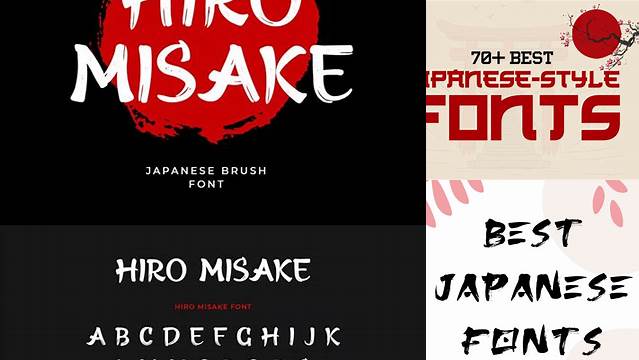
Free Japanese Font Styles Download: Best Picks!
Hey guys! Looking to add a touch of Japanese flair to your projects? You're in the right place! In this article, we're diving deep into the world of free Japanese font styles. We'll explore everything from elegant calligraphy fonts to cool, modern designs, and show you where to download them. So, let's get started and make your text look amazing!
1. Understanding Japanese Font Styles
Before we jump into downloading, let's talk about what makes Japanese fonts unique. Unlike Latin alphabets, Japanese writing uses a combination of three scripts: Hiragana, Katakana, and Kanji. Each script has its own distinct style and purpose, which influences the overall look of the font. When you're looking for a free download Japanese font style, it’s crucial to understand these differences to choose the right font for your project.
Japanese font styles can range from traditional calligraphy-inspired fonts, which are elegant and flowing, to more modern and geometric designs. Think about the message you want to convey. A traditional font might be perfect for a historical or cultural project, while a modern font could be better suited for a tech or gaming theme. Understanding the nuances of each style will help you make the best choice and ensure your design truly captures the essence of Japanese aesthetics.
Also, consider the legibility of the font. Some elaborate calligraphy fonts might look stunning, but they can be difficult to read if used for body text. Save those for headlines or decorative elements where readability isn't as crucial. For longer texts, opt for simpler, cleaner Japanese fonts that are easy on the eyes. This balance between style and readability is key to effective design.
3.1 Google Fonts
Google Fonts is a powerhouse for free fonts, and their Japanese selection is no exception. The fonts here are designed for web use, meaning they load quickly and look great online. Google Fonts offers a variety of Japanese font styles, including both traditional and modern designs. The best part? All fonts are open-source, so you can use them for personal and commercial projects without worry. Google Fonts makes it easy to preview fonts, download them, and even embed them directly into your website with just a few lines of code. This is a huge advantage if you're working on a web project and need fonts that are optimized for online display. The interface is clean and straightforward, making it easy to find the perfect font for your needs.
3.2 DaFont
DaFont is a treasure trove of fonts, with a massive collection submitted by designers from around the world. You’ll find a wide range of Japanese fonts here, from elegant calligraphy styles to quirky, handwritten designs. DaFont is a great place to discover unique and unconventional fonts that you might not find elsewhere. However, it’s crucial to check the license for each font before using it, as licenses can vary from personal use only to commercial use. Some fonts may require you to contact the designer for permission or pay a fee for commercial use. The sheer variety of fonts on DaFont makes it a fantastic resource, but always exercise due diligence to ensure you're using the fonts legally.
3.3 Font Squirrel
Font Squirrel is known for its curated collection of high-quality, free-for-commercial-use fonts. While their Japanese selection might be smaller than Google Fonts or DaFont, the fonts they offer are typically very well-designed and professional. Font Squirrel’s focus on commercial-use fonts makes it a reliable choice for designers who need fonts for client projects or other commercial applications. The site also offers a handy Font Identifier tool that can help you identify fonts from images, which is a nice bonus. If you're looking for a free download Japanese font style that you can confidently use in commercial work, Font Squirrel is a great place to start.